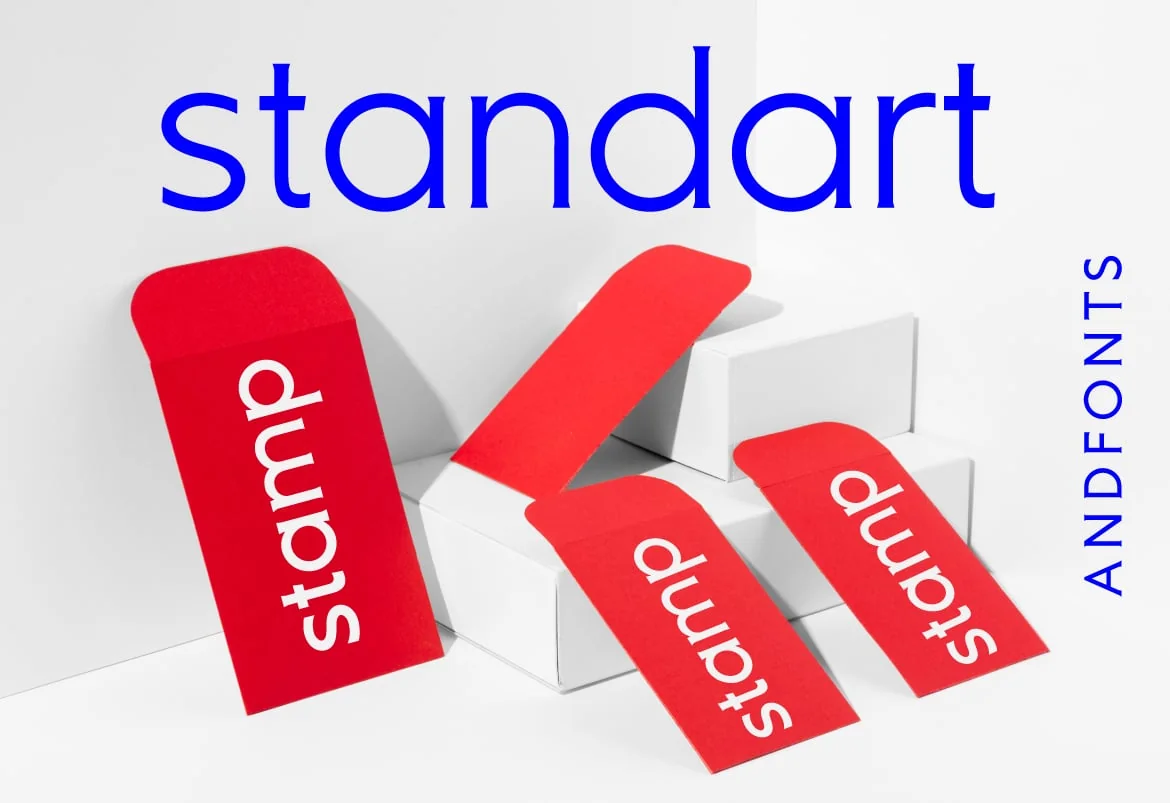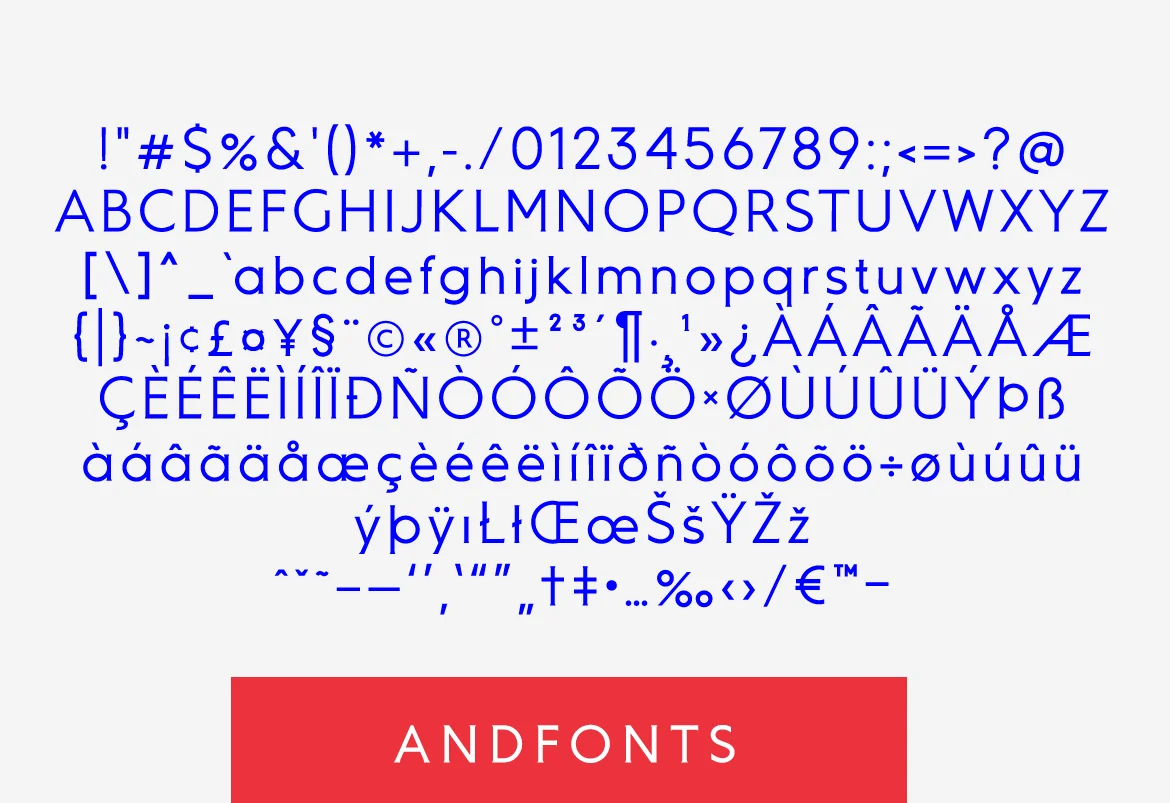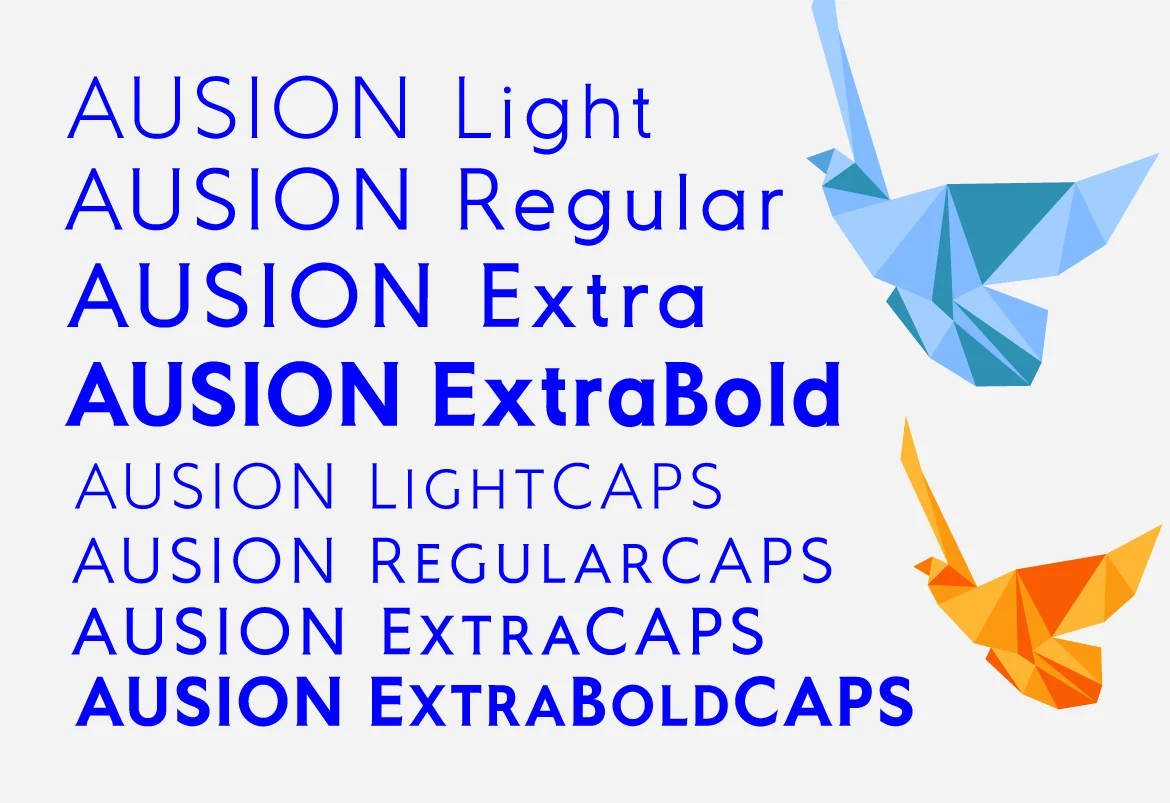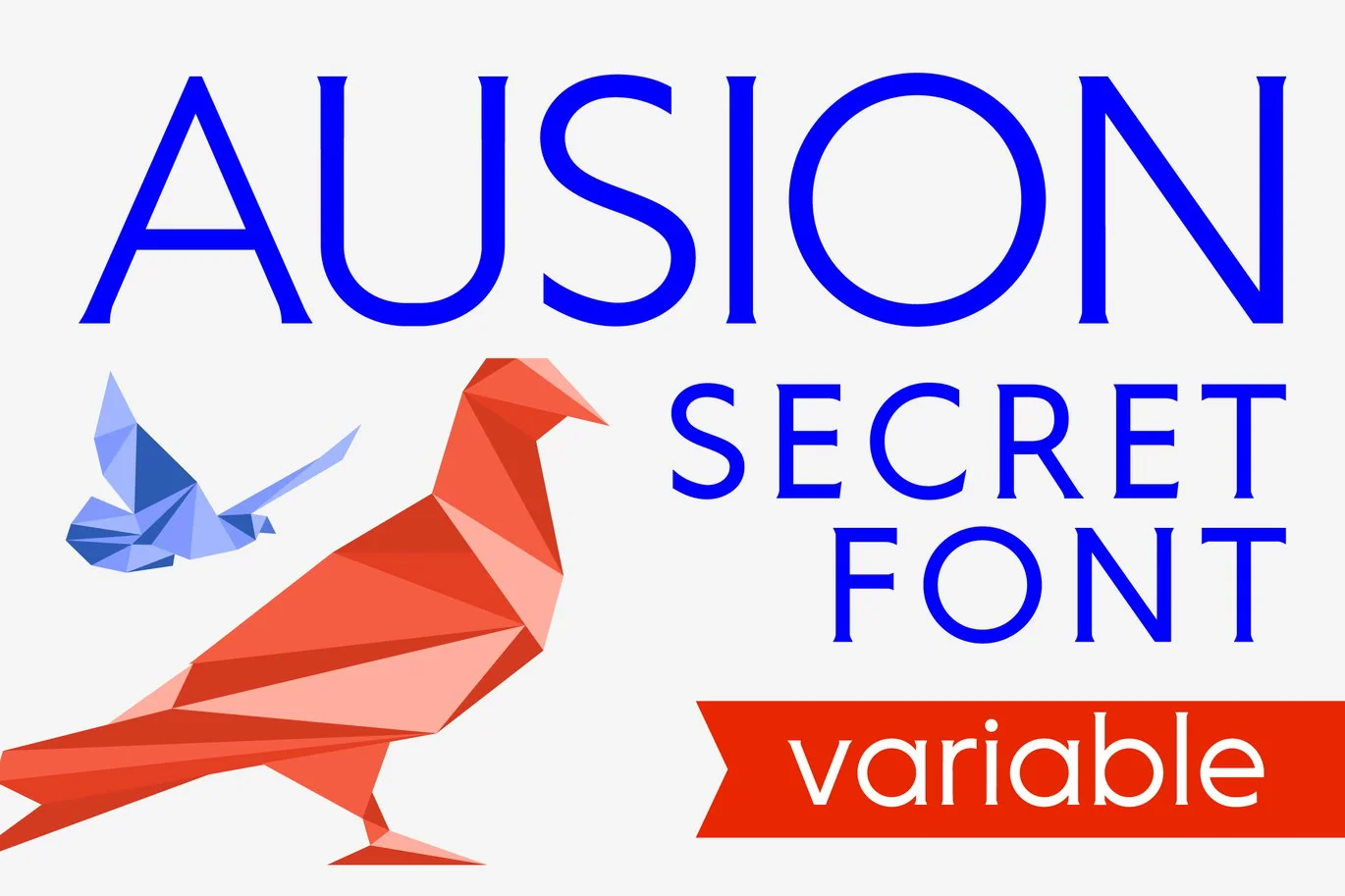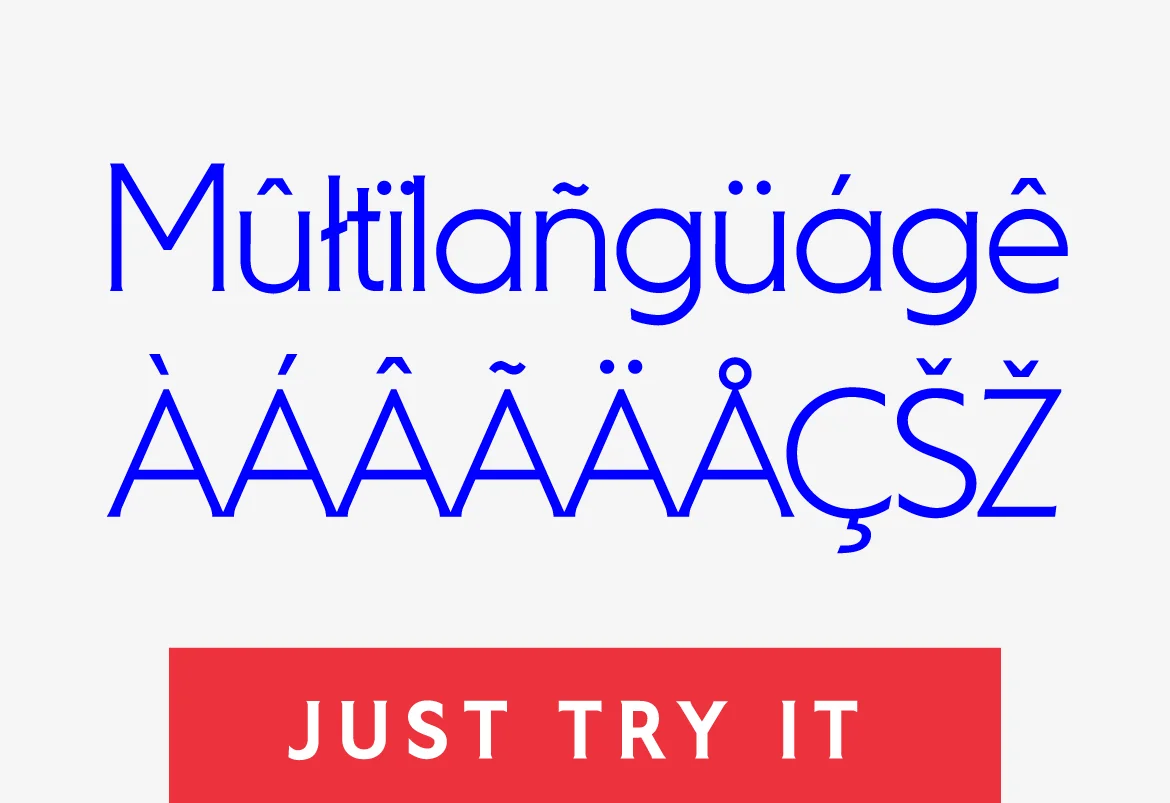
Ausion Serif Modern font
“Ausion is a modern serif font that combines sleek lines with classic elements, resulting in a timeless and sophisticated design. Ausion brings a touch of refinement to any project, whether it’s for print or digital. The geometric shapes and sharp edges of each letterform create a unique and distinctive look, while still maintaining legibility and readability. Ausion is perfect for branding, editorial design, and any other project that requires a touch of modern sophistication.”